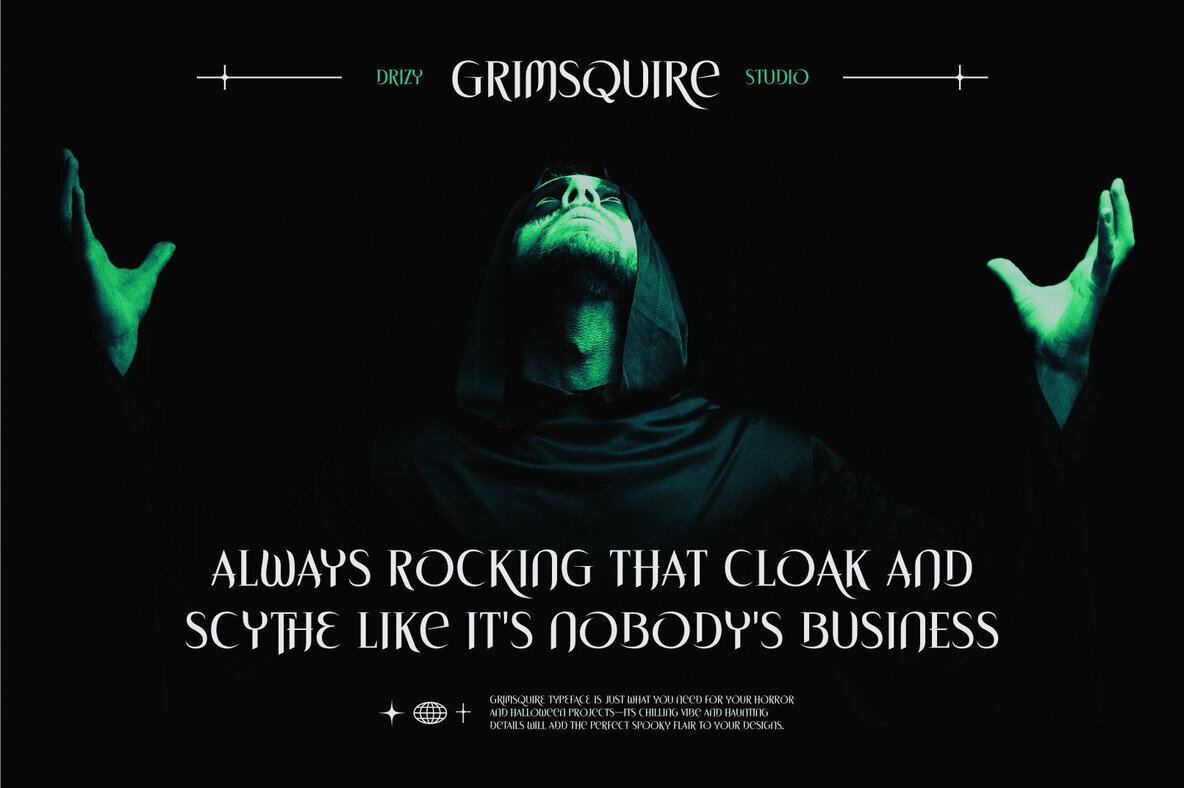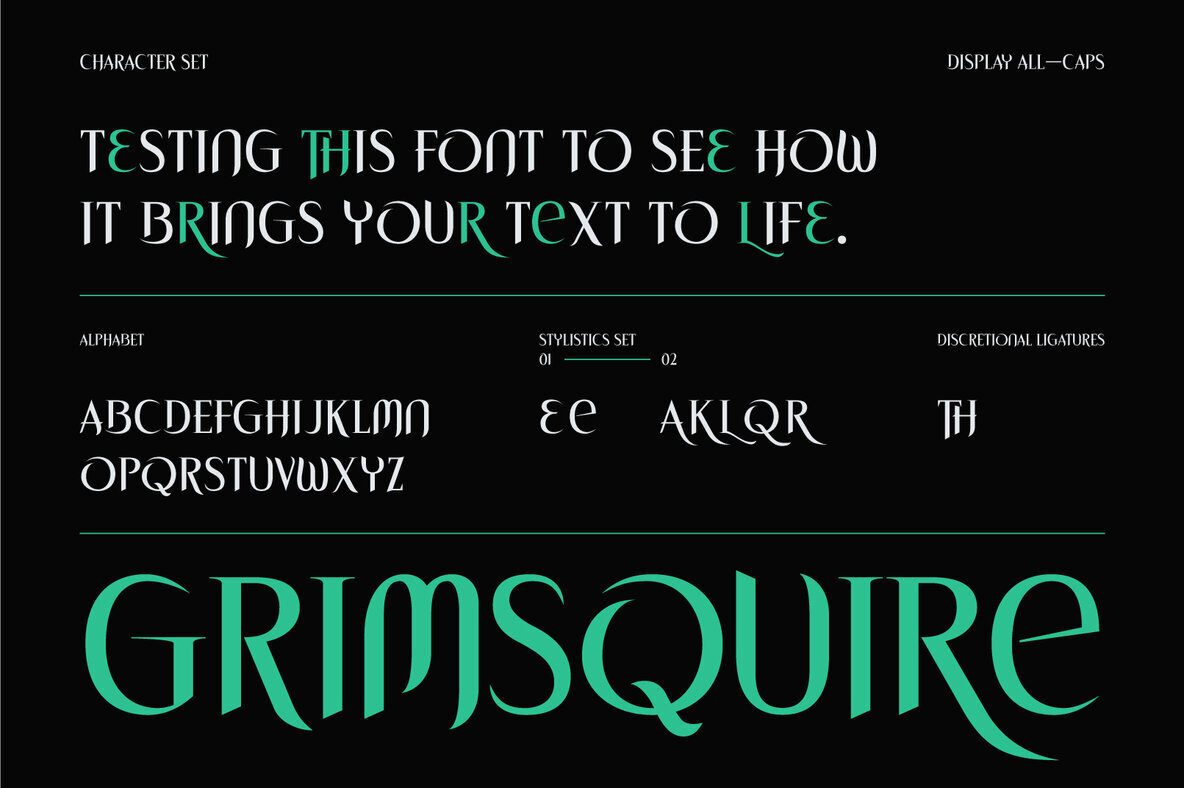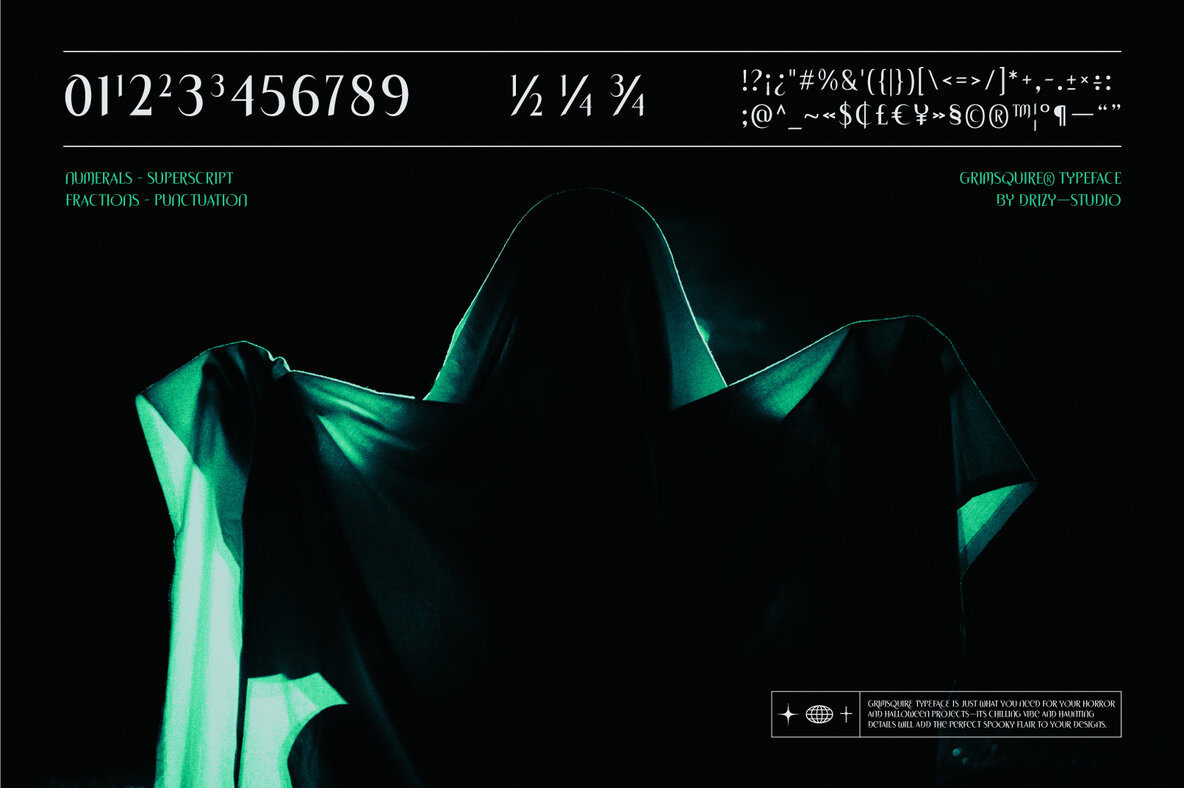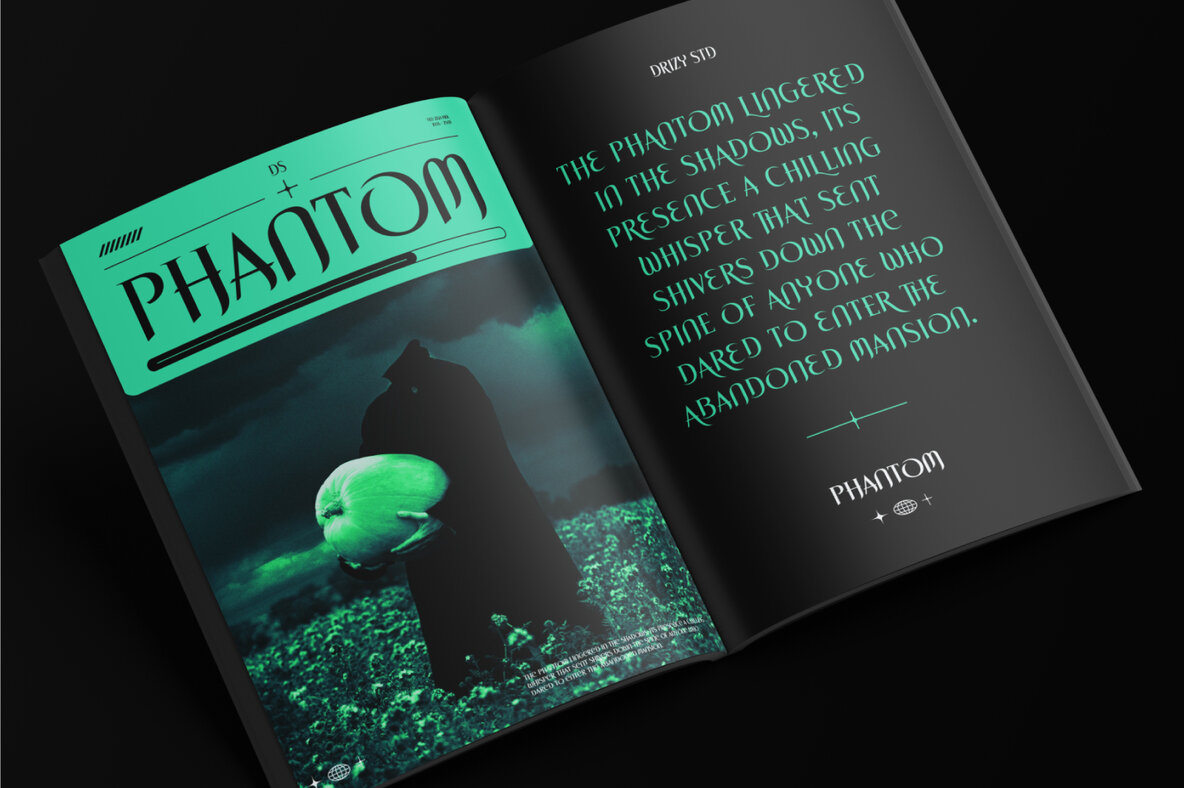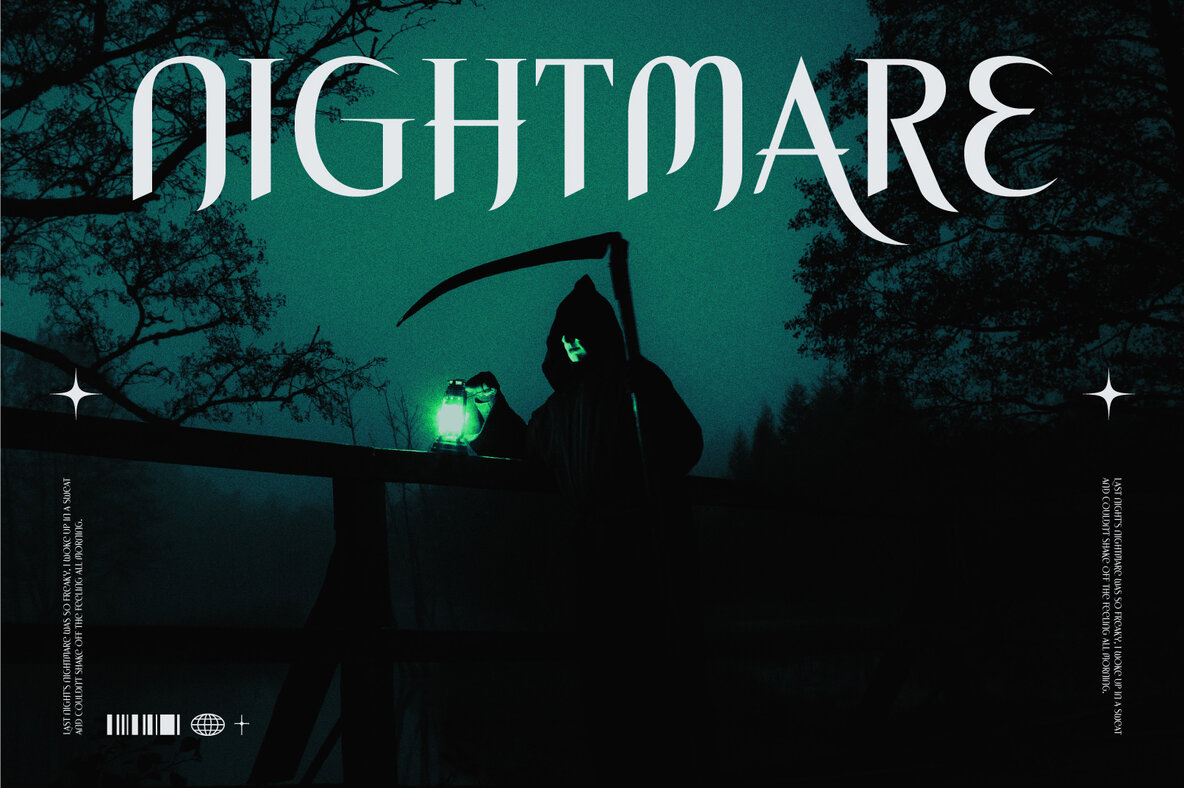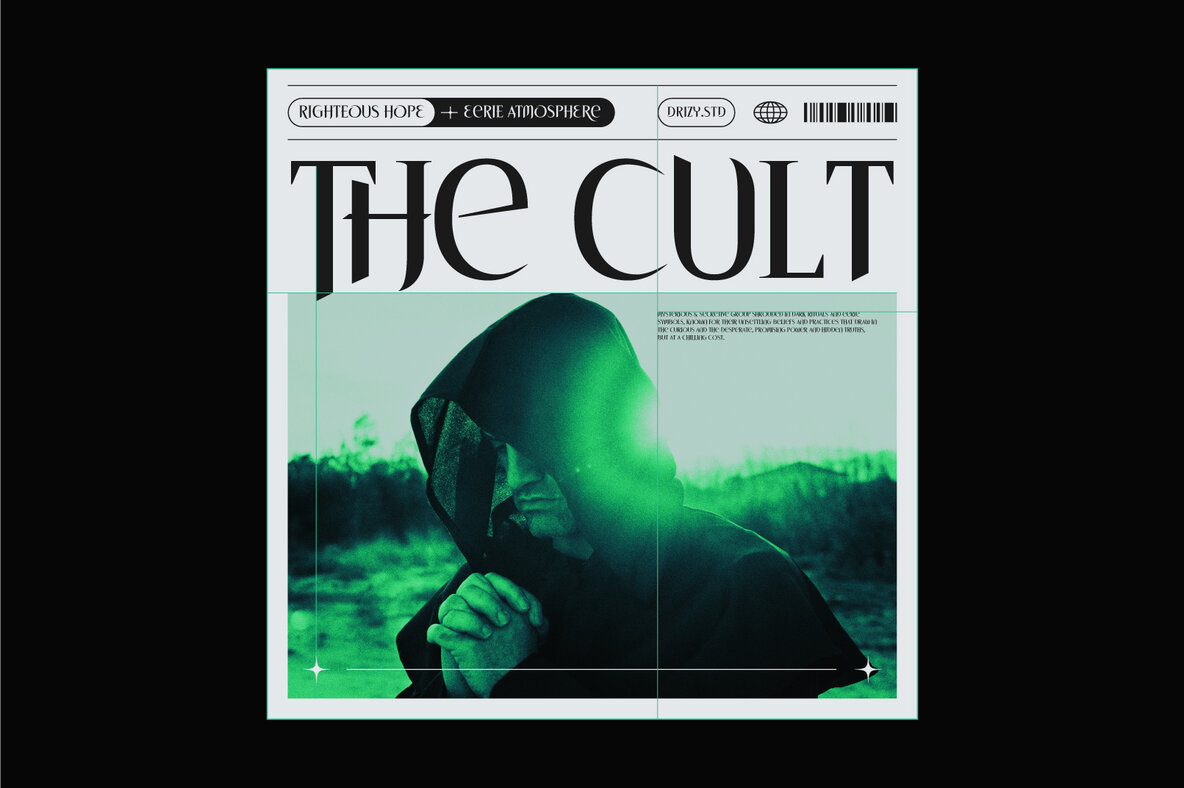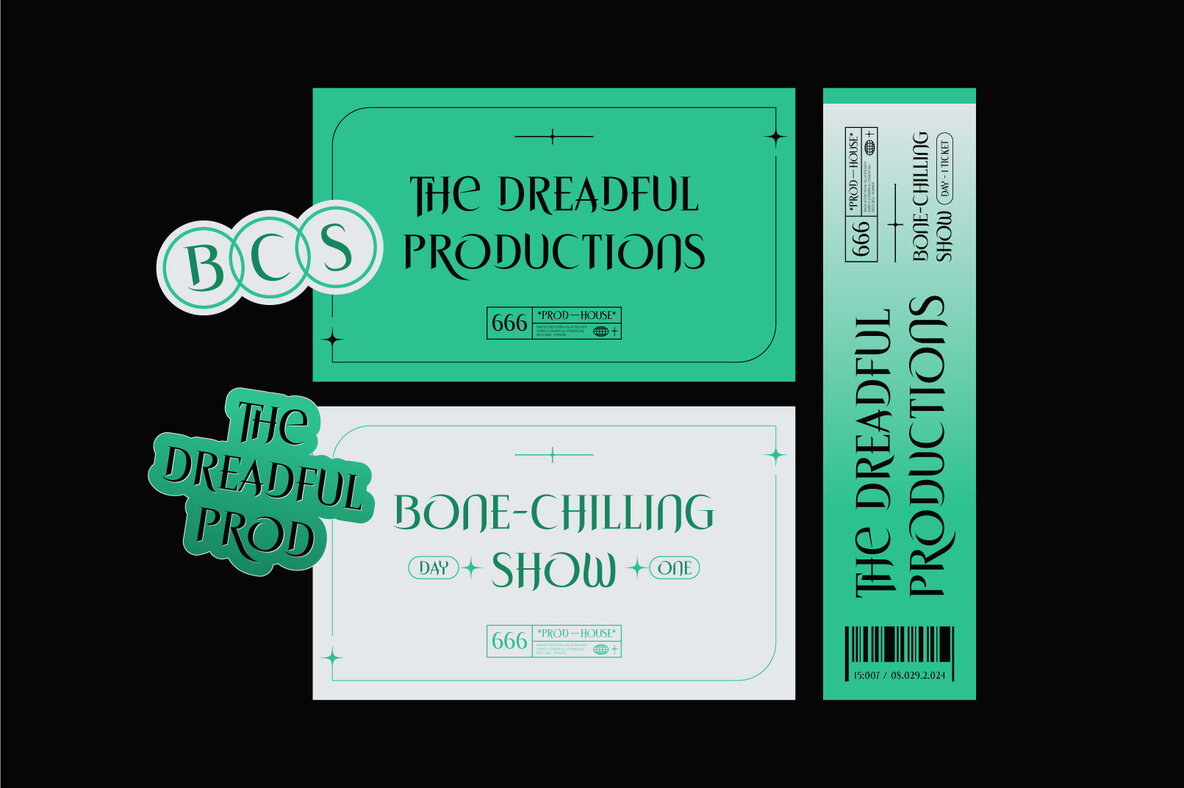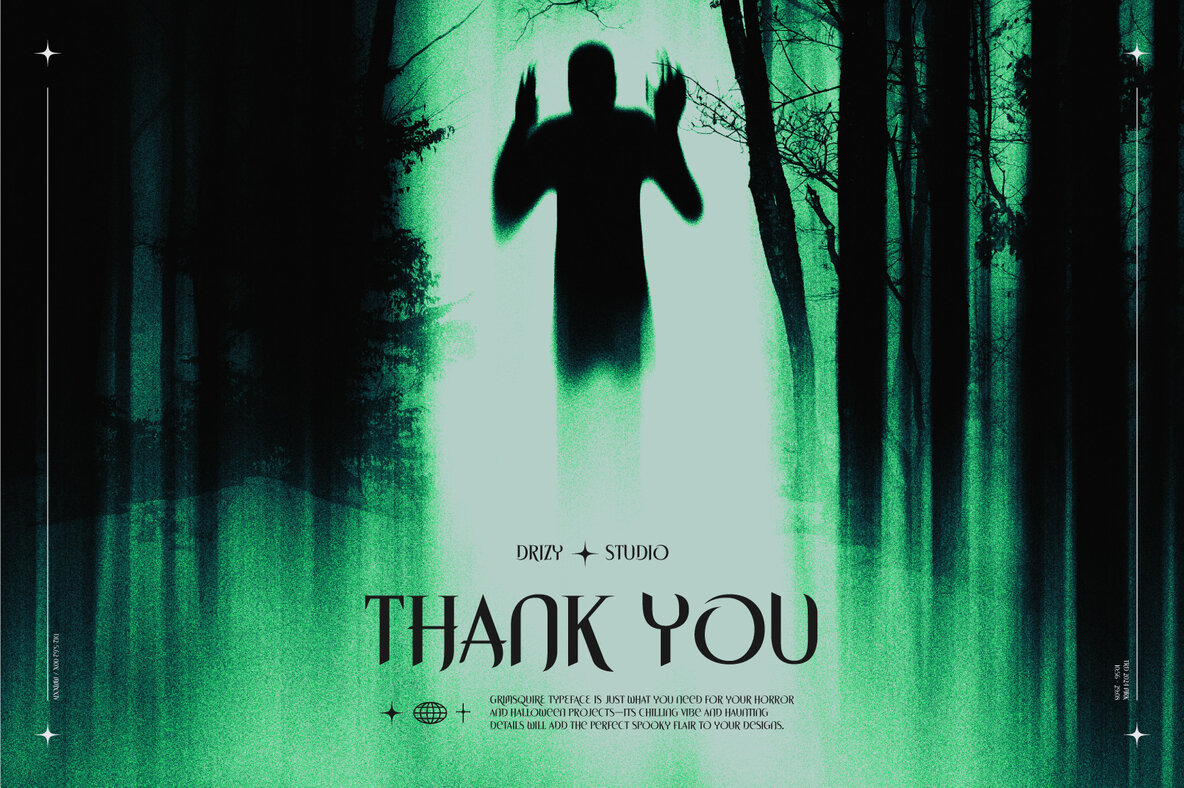
Grimsquire Font
Grimsquire Regular
Grimsquire is a spine-chilling addition to our Halloween collection, crafted to evoke a sense of dread and terror. Each finely sharpened ax in this font is designed with dark history and malevolent energy, perfect for those who embrace the macabre spirit of Halloween. Ideal for decorating haunted houses or enhancing horror-themed projects, Grimsquire brings a fearful edge that transforms the ordinary into the extraordinary.
This horror font includes an all-caps character set, punctuation, numbers, multilingual support, stylistic sets 01 and 02, and discretionary ligatures. With Grimsquire, unleash your darkest creativity and make a thrilling impact on your audience.